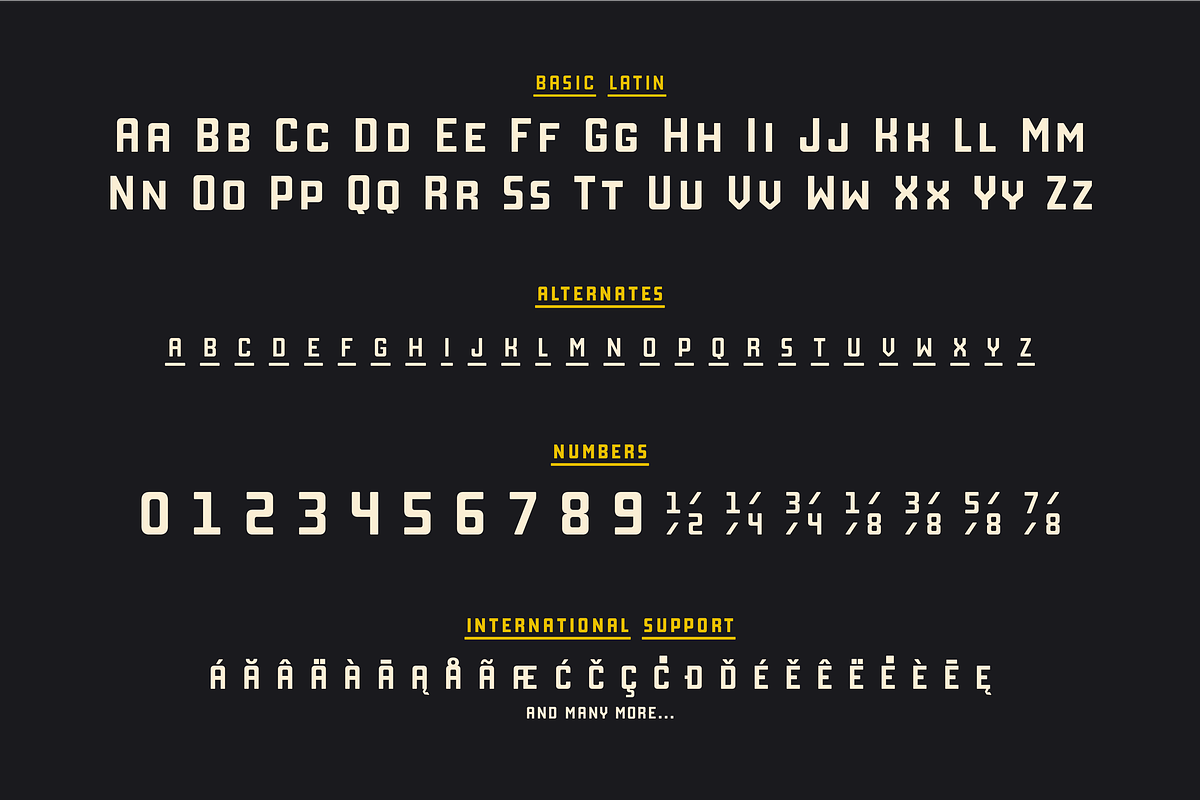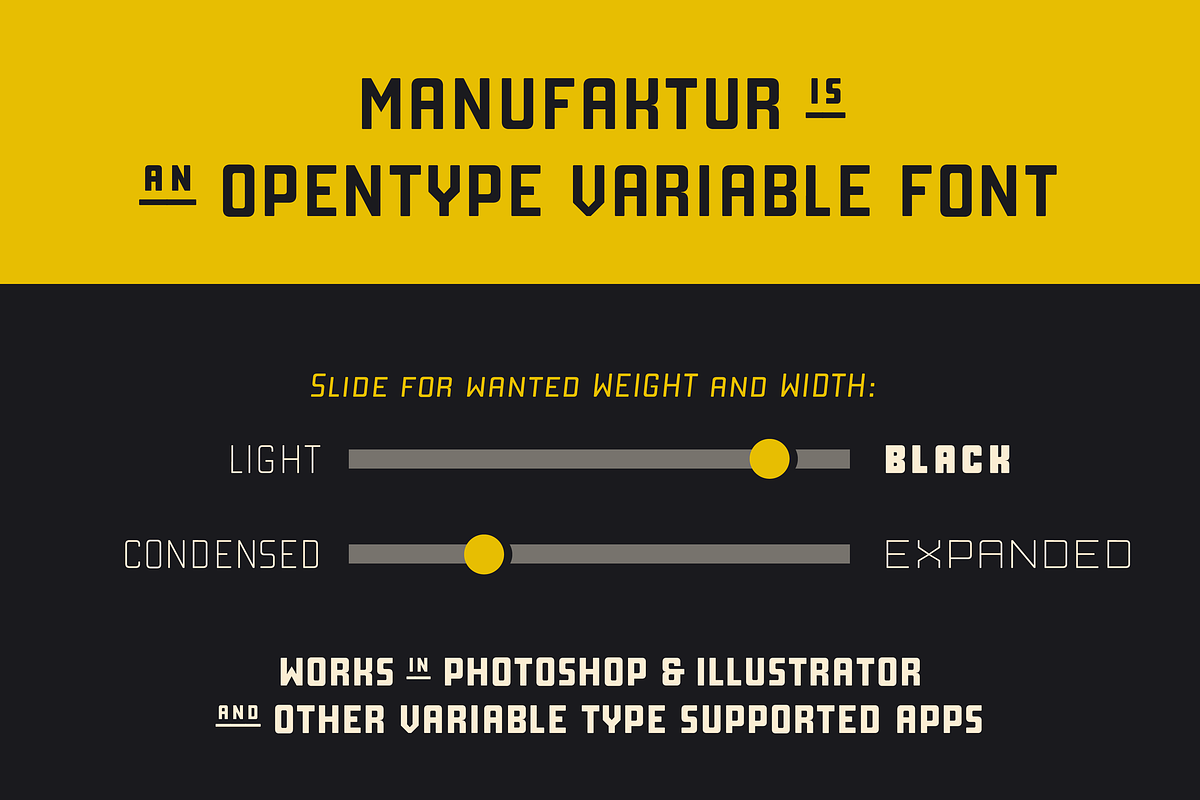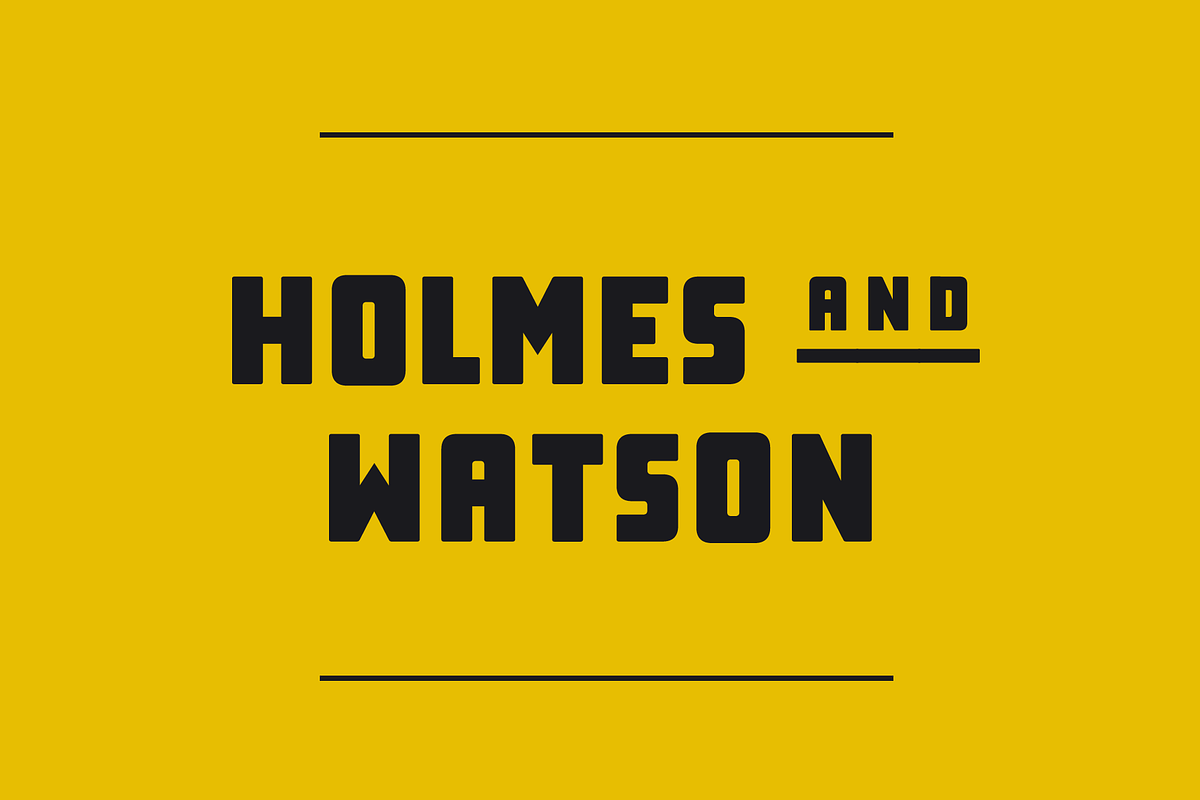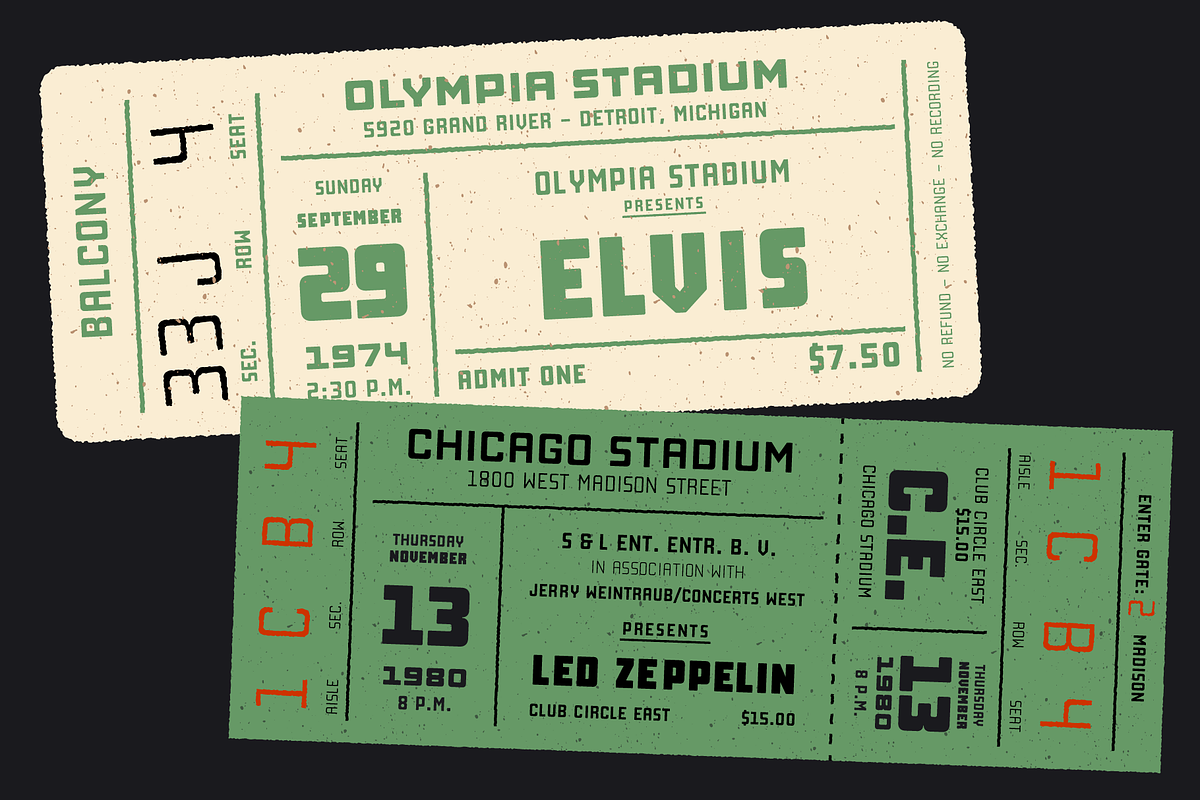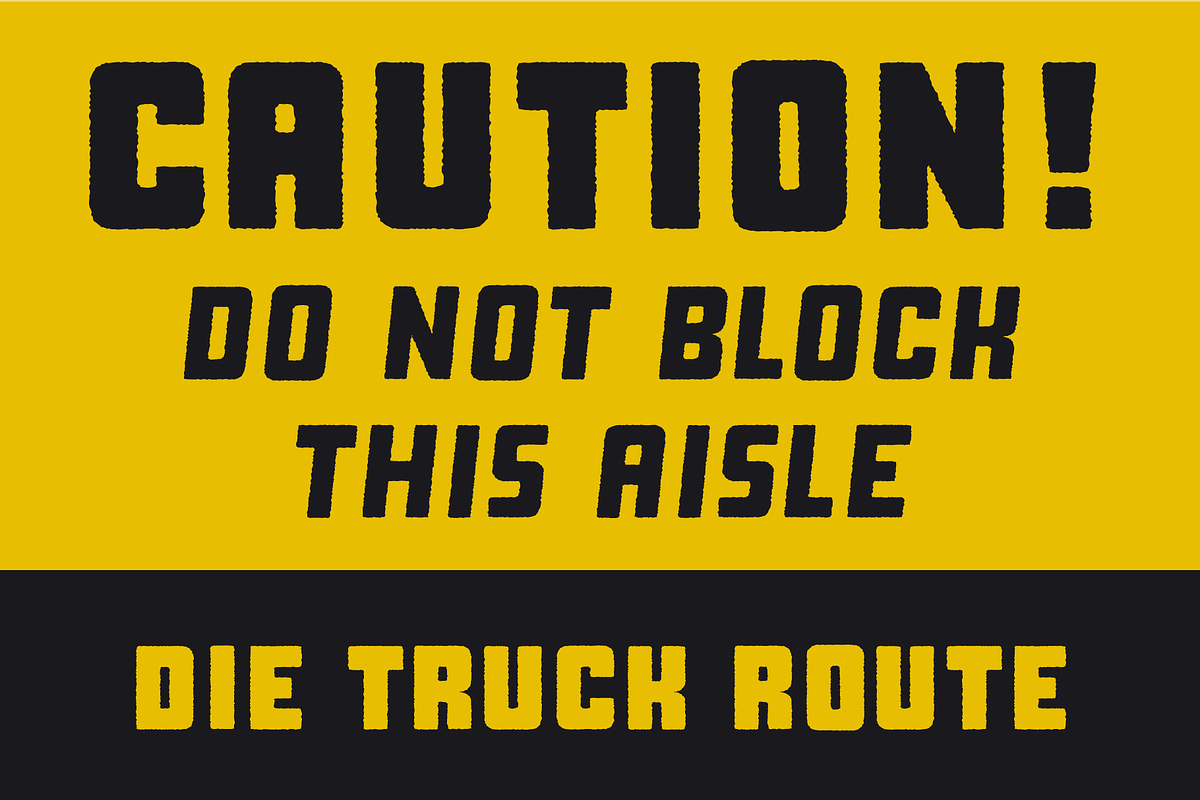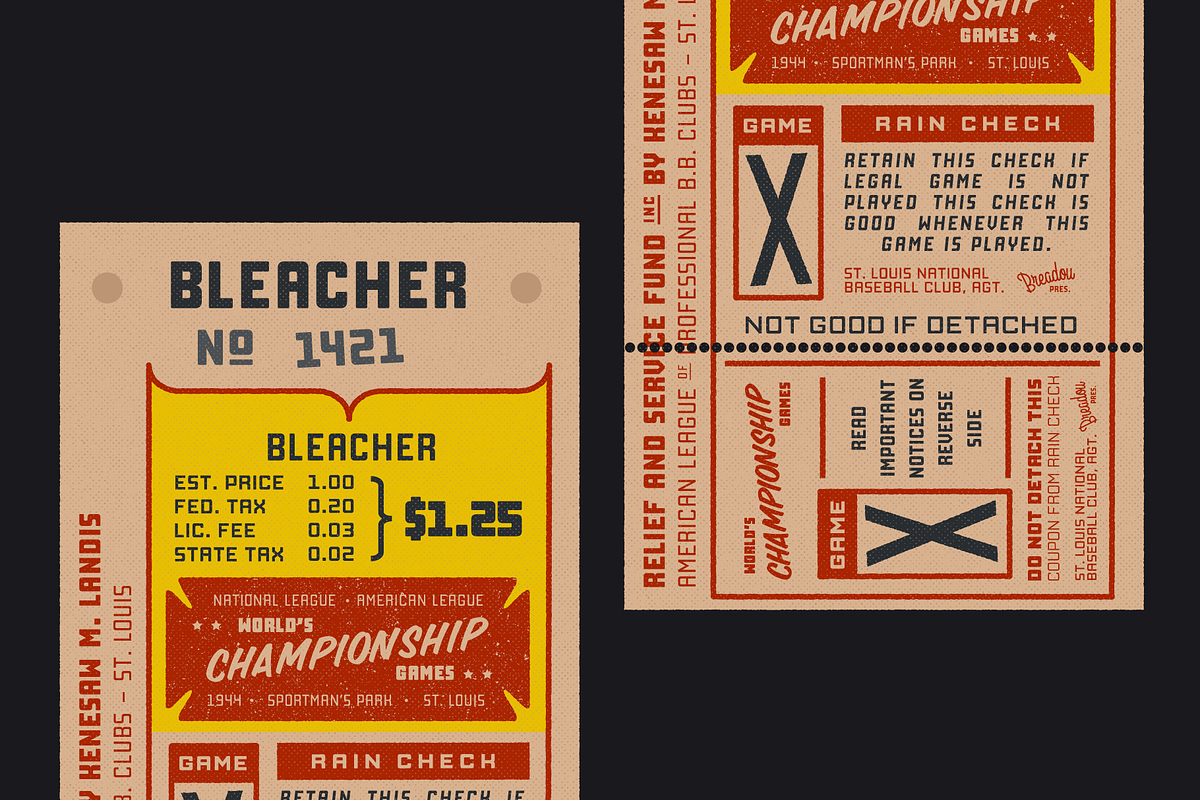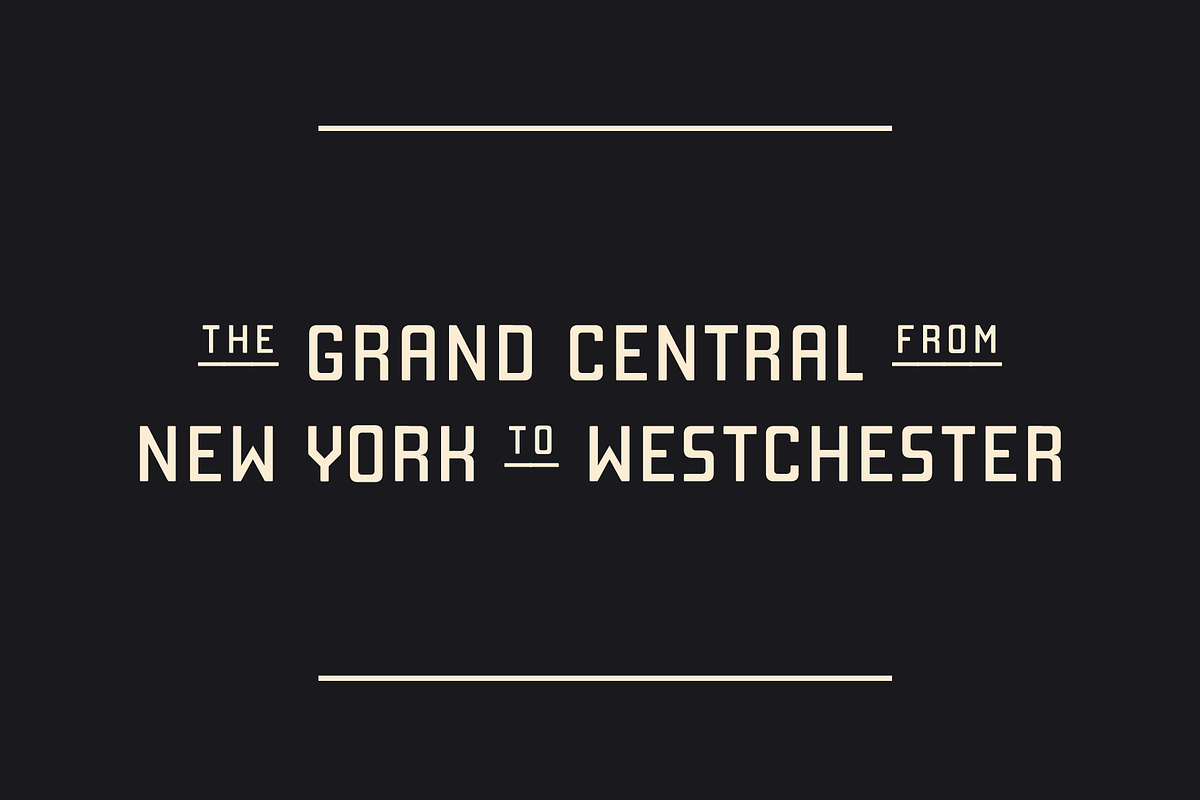
Manufaktur - A 60 fonts family
MANUFAKTUR - A hard at work and utilitarian typeface!
Presenting MANUFAKTUR - A typeface influenced by an old iron cast sign on an old Swedish industrial machine. The simple curves of the characters suited well for an 21st century update and the new and modern MANUFAKTUR is now a variable typeface with thousands of combinations of width and weight.
This hardworking sans serif is perfect for display use, signage, poster, prints, editorial use, branding, logos, magazines, films and lots more.
The variable weight and width makes MANUFAKTUR very versatile and flexible.
The MANUFAKTUR with family consists of 60 fonts:
5 weights(Light, Medium, Bold, Extra Bold & Black)
3 widths(Normal, Expanded & Ultra Expanded)
3 styles(Normal, Italic, Rough)
With 670+ glyphs MANUFAKTUR supports basic, Western European, Central European and South Eastern European languages.
- MANUFAKTUR comes with stylistic alternates (smaller glyphs with underline) and small caps (small caps also works as lowercase).